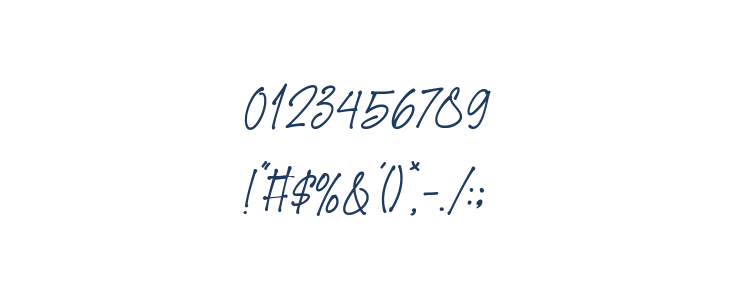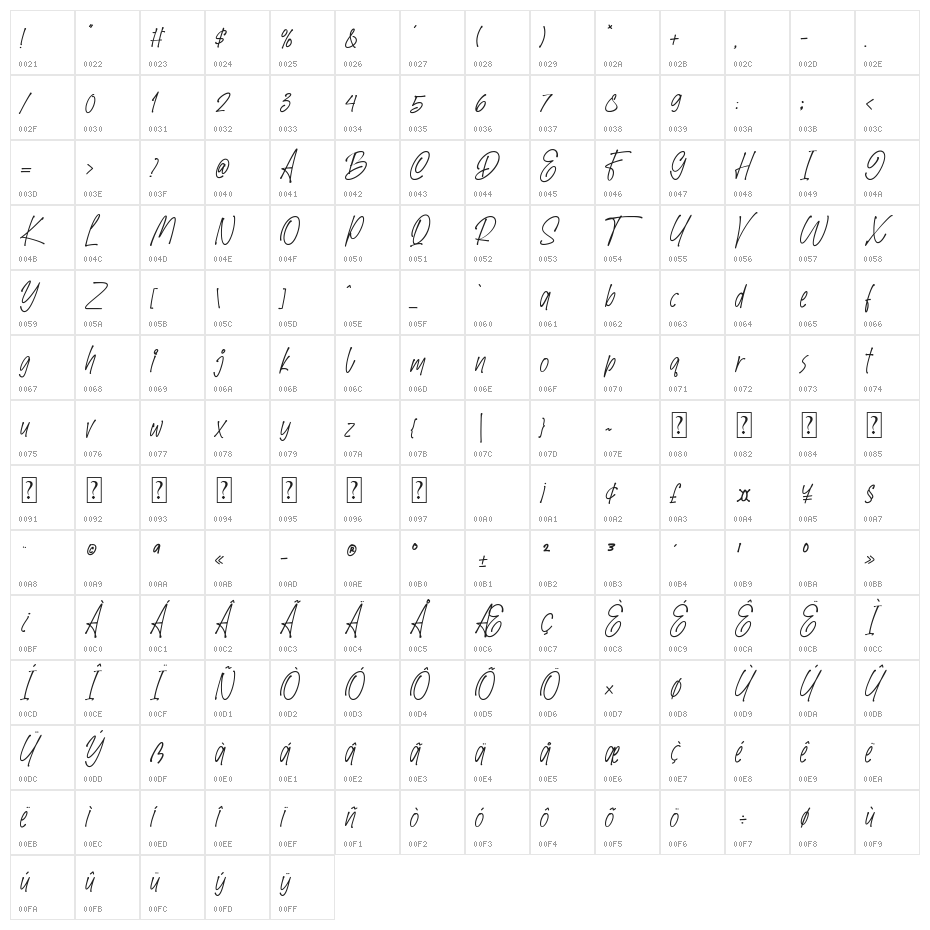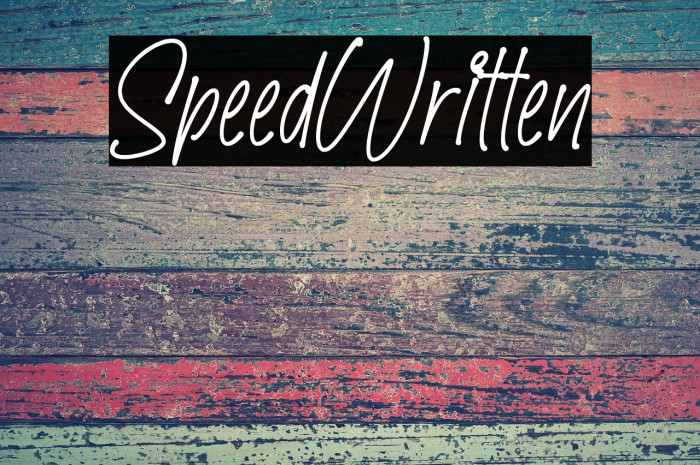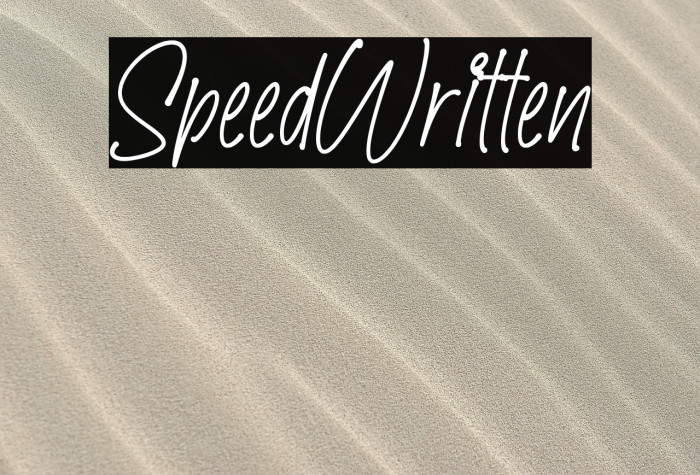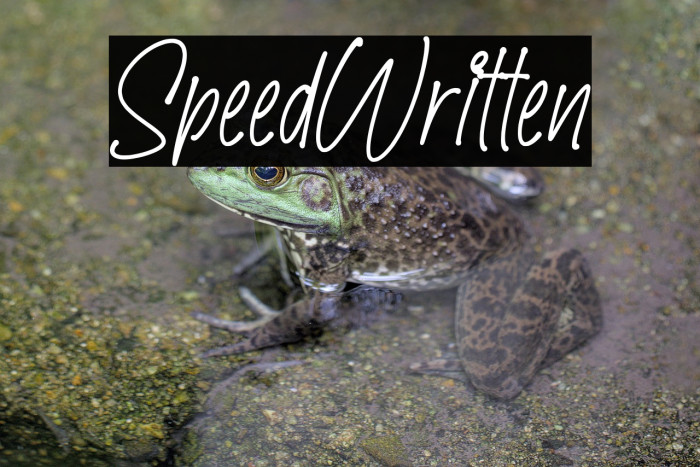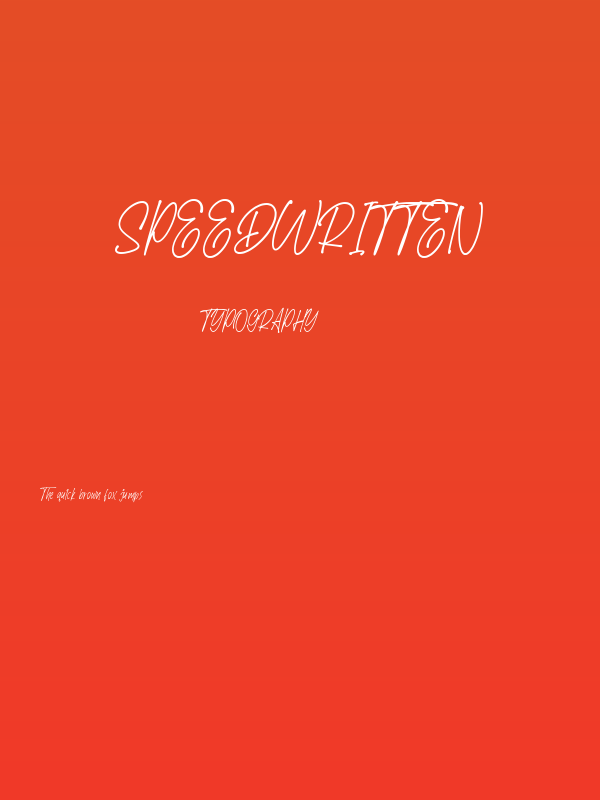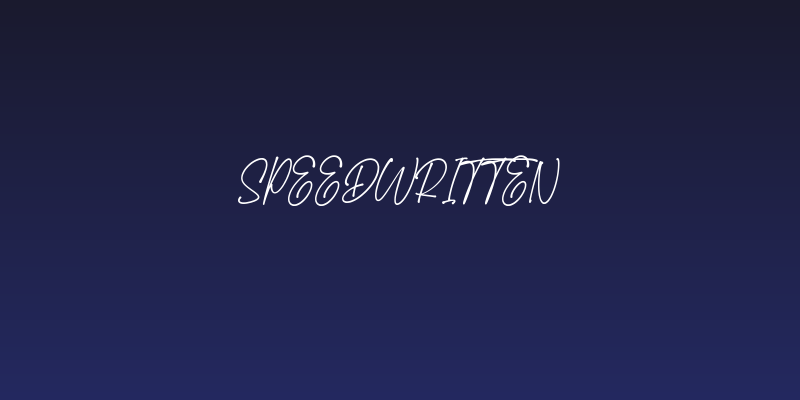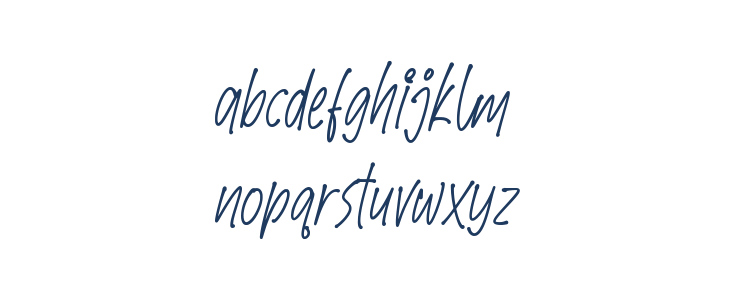
SpeedWritten Font
SpeedWritten Description
This font features a dynamic and fluid handwritten style, characterized by its elegant and slightly slanted letterforms. The strokes are smooth and continuous, giving it a natural and personal touch. The uppercase letters are bold and prominent, while the lowercase letters maintain a consistent flow, enhancing readability. The numerals and special characters are crafted with the same attention to detail, ensuring a cohesive appearance across all glyphs. This font exudes a sense of speed and motion, making it ideal for projects that require a personal and informal tone.
| Use Case | Logos, Invitations, Greeting Cards |
| Proposed Projects | Ideal for personal branding, invitations, greeting cards, and creative projects that require a personal touch. |